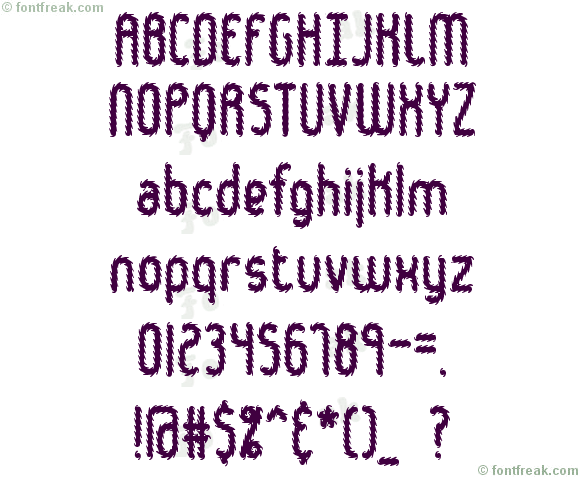
Hairball BRK
About Hairball
Hairball, created by Ænigma Fonts, is a unique display font that captures attention with its whimsical and playful characteristics. This freeware font features a distinct, textured style reminiscent of hand-drawn letters, making it perfect for projects that require a touch of creativity and fun. The strokes are irregular and vary in weight, giving each letter a lively and dynamic appearance. The spacing is generous, allowing for easy readability while maintaining a quirky aesthetic that sets it apart from conventional typefaces.
Ideal for a range of creative applications, Hairball is particularly well-suited for children's book covers, playful branding, and creative event invitations. Its engaging design can also enhance promotional materials for pet-related businesses, such as grooming salons or veterinary clinics, adding a friendly and approachable flair. Additionally, it works wonderfully for social media graphics and blog headers aimed at a youthful audience, making it a versatile choice for content creators looking to add some personality to their designs.
The target audience for this font includes graphic designers, small business owners, and content creators who seek to inject a sense of whimsy and fun into their work. Its unique style appeals to those looking to stand out in a crowded marketplace, making it an excellent choice for anyone wanting to leave a memorable impression.
What truly makes Hairball remarkable is its ability to convey creativity and playfulness without compromising legibility. This font stands out not only for its charming design but also for its versatility across various media. Whether you’re crafting a vibrant poster or a delightful website, the Hairball font free download offers an exciting solution for enhancing your visual storytelling.